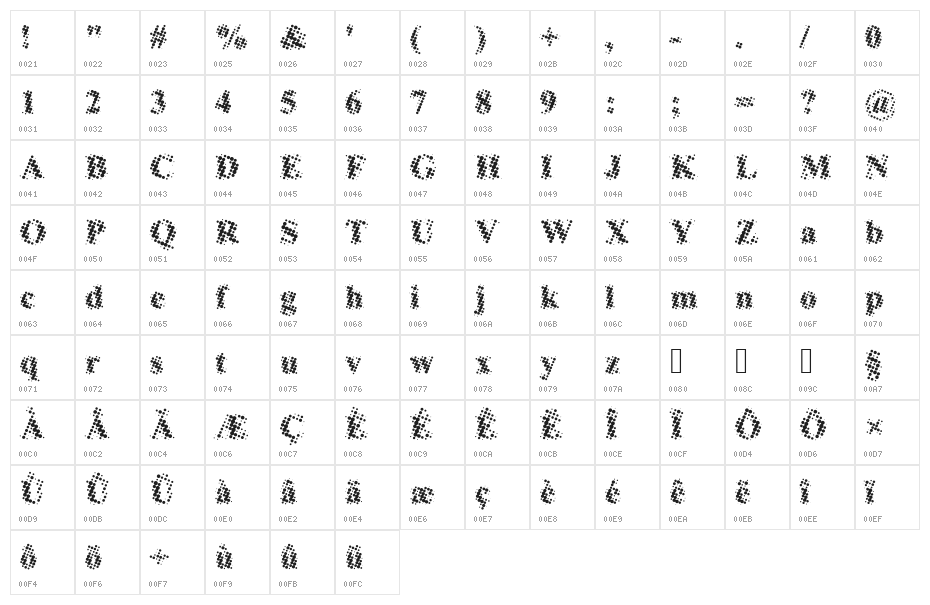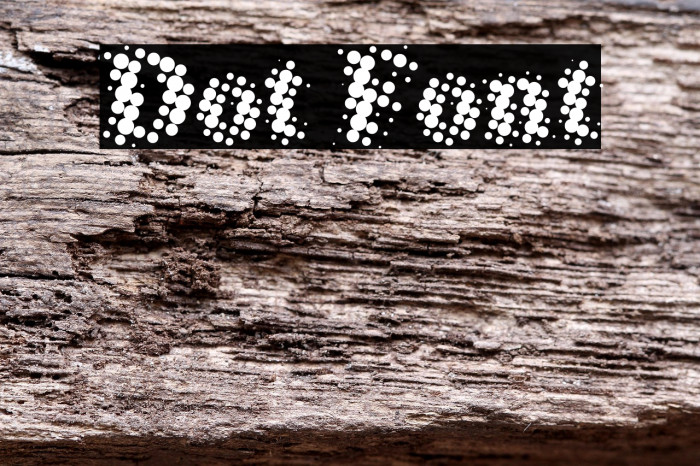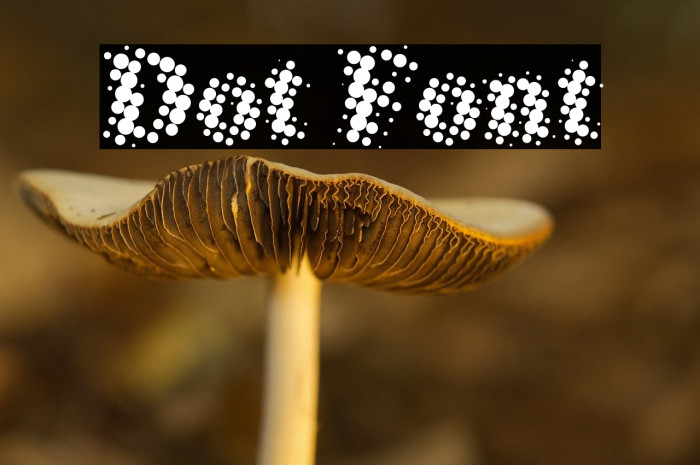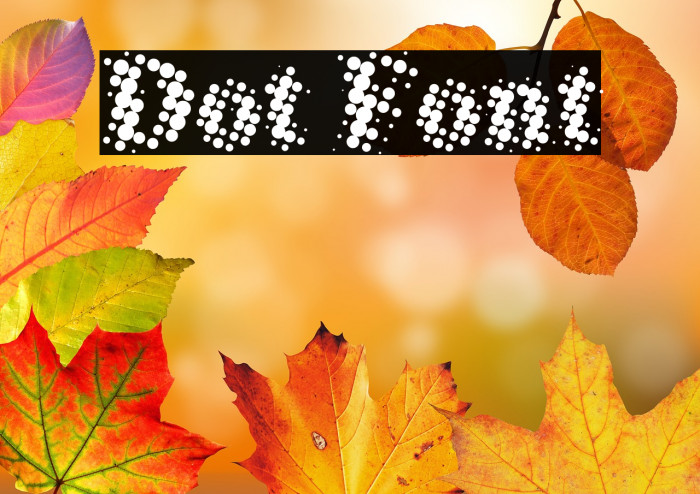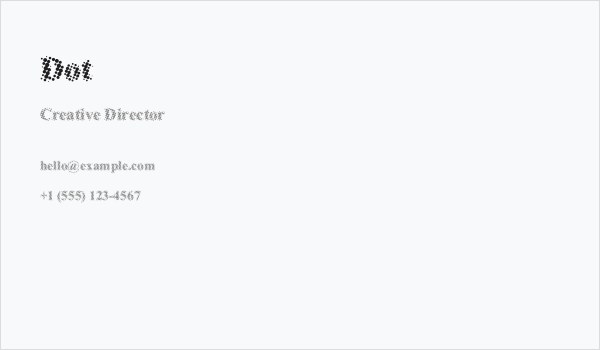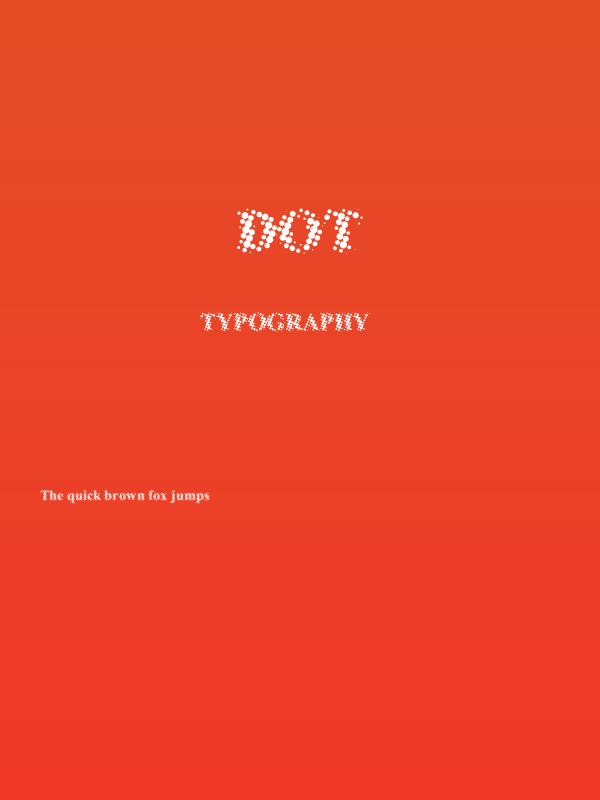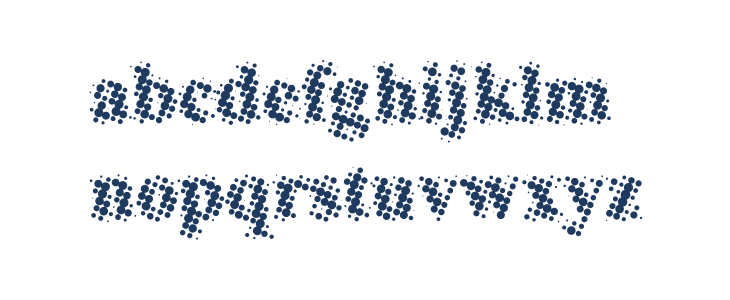
Dot Font
Dot Description
This font features a unique dotted pattern that forms each character, giving it a playful and artistic appearance. The letters are composed of evenly spaced dots, creating a sense of texture and depth. The uppercase and lowercase letters maintain a consistent style, with a slight slant that adds a dynamic feel. The numbers and special characters follow the same dotted design, ensuring uniformity across the entire set. This font is visually striking and stands out due to its unconventional approach, making it suitable for creative and eye-catching designs.
| Proposed Projects | Ideal for posters, creative branding, children's books, and artistic projects. |